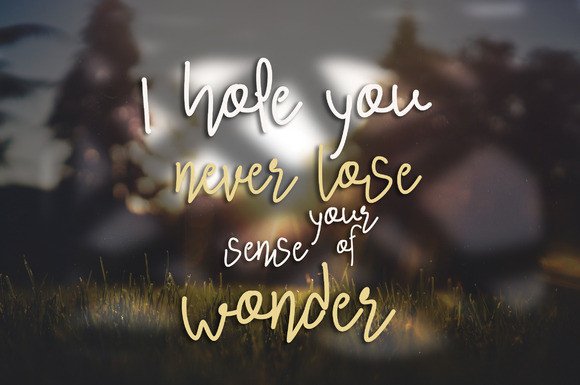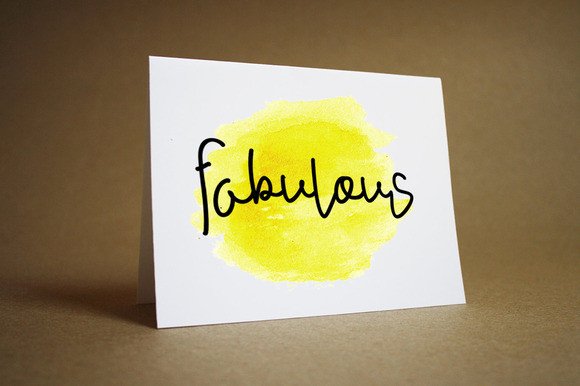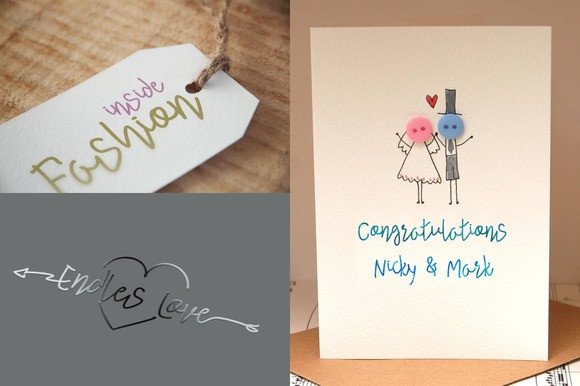
Awesome Darling Font
About Awesome Darling Font
Awesome Darling is a goofy and fun script font, perfect for a wide range of creative projects. This font looks phenomenal in romantic, friendly, or fashionable creative projects.